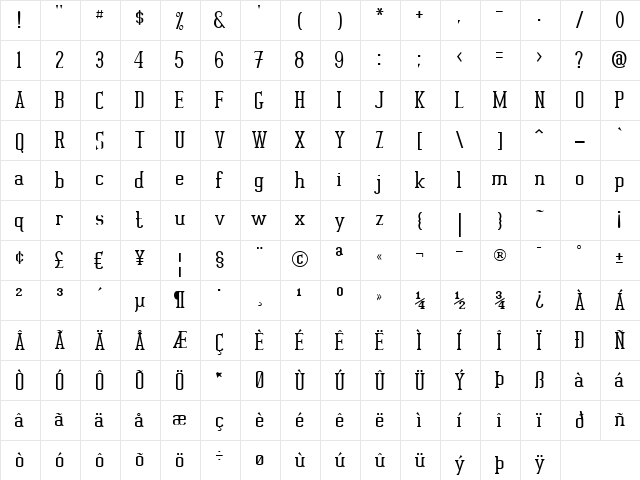
Rutager Regular
Design Context for Rutager Typeface
Rutager is a composed and adaptable typeface that performs quietly and consistently across a wide range of design contexts.